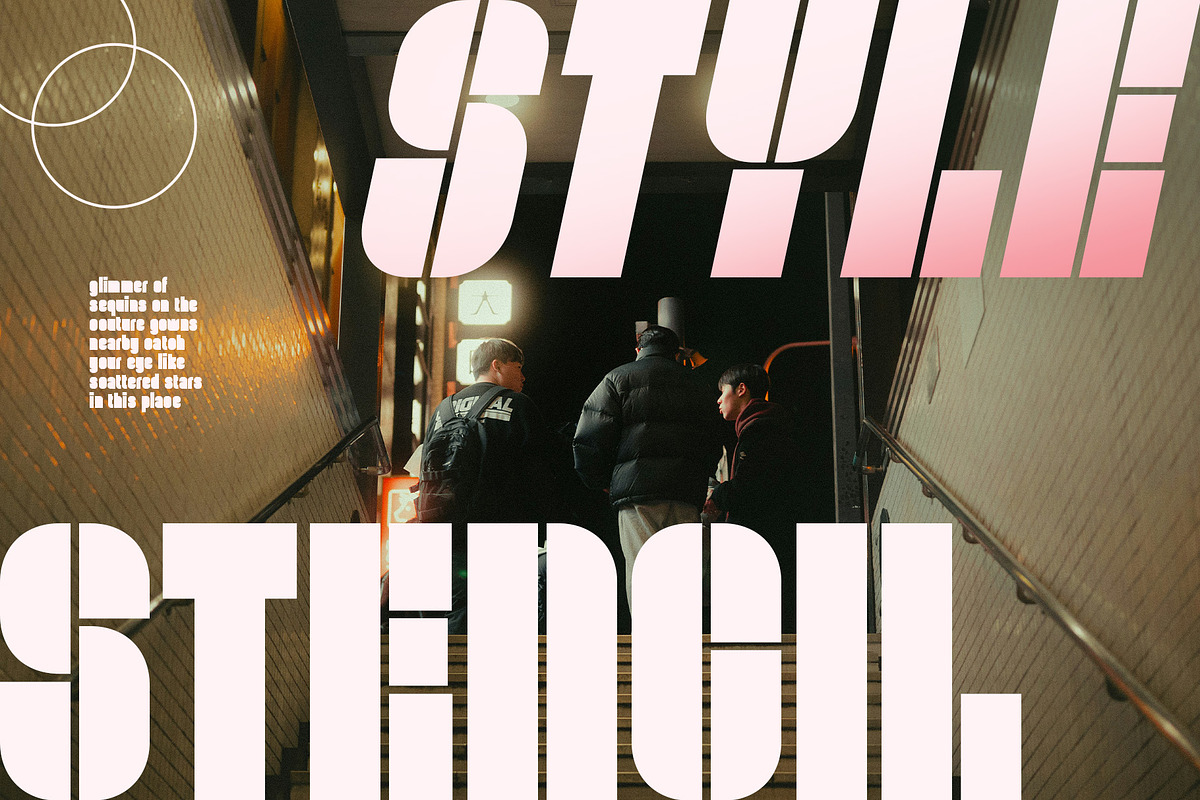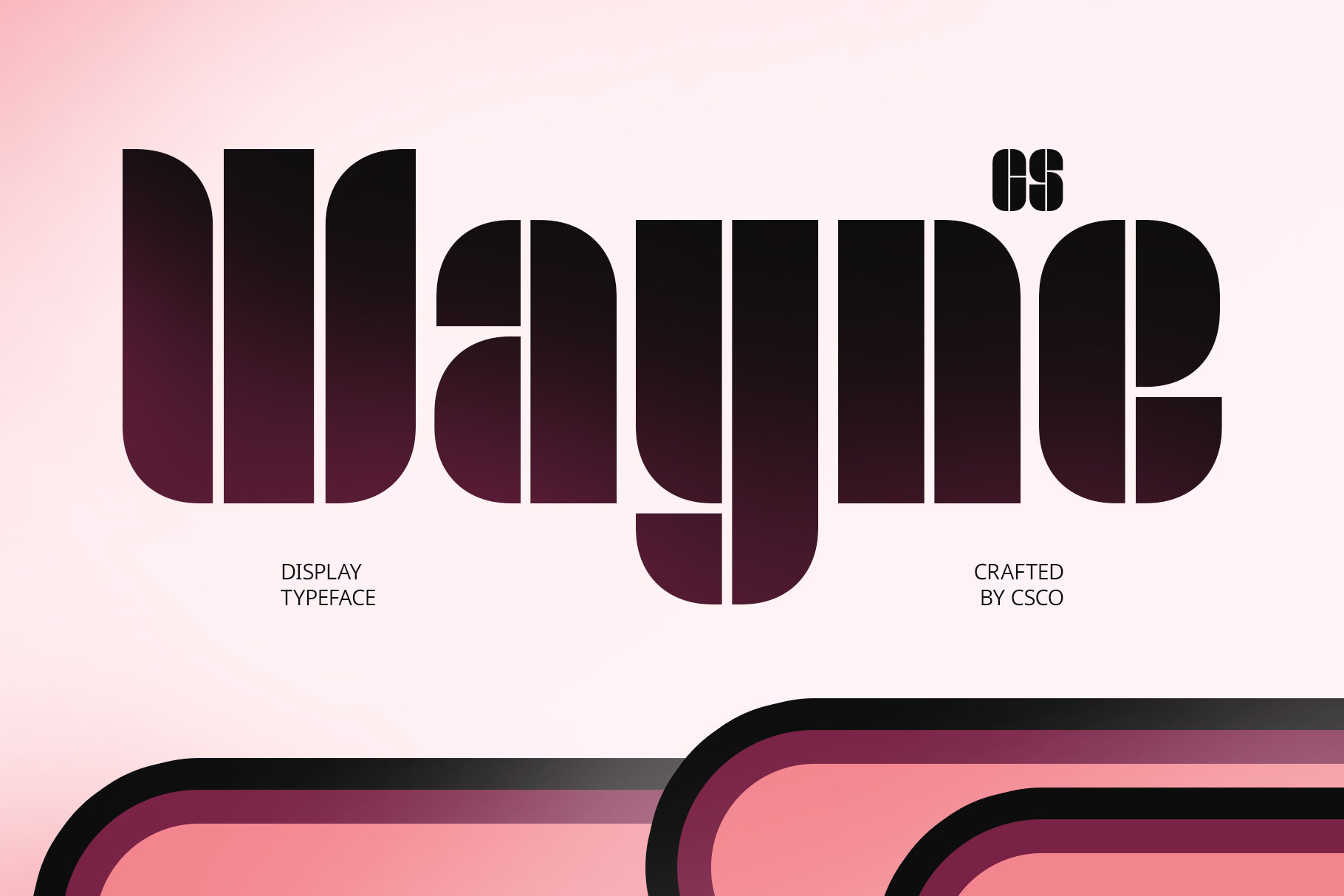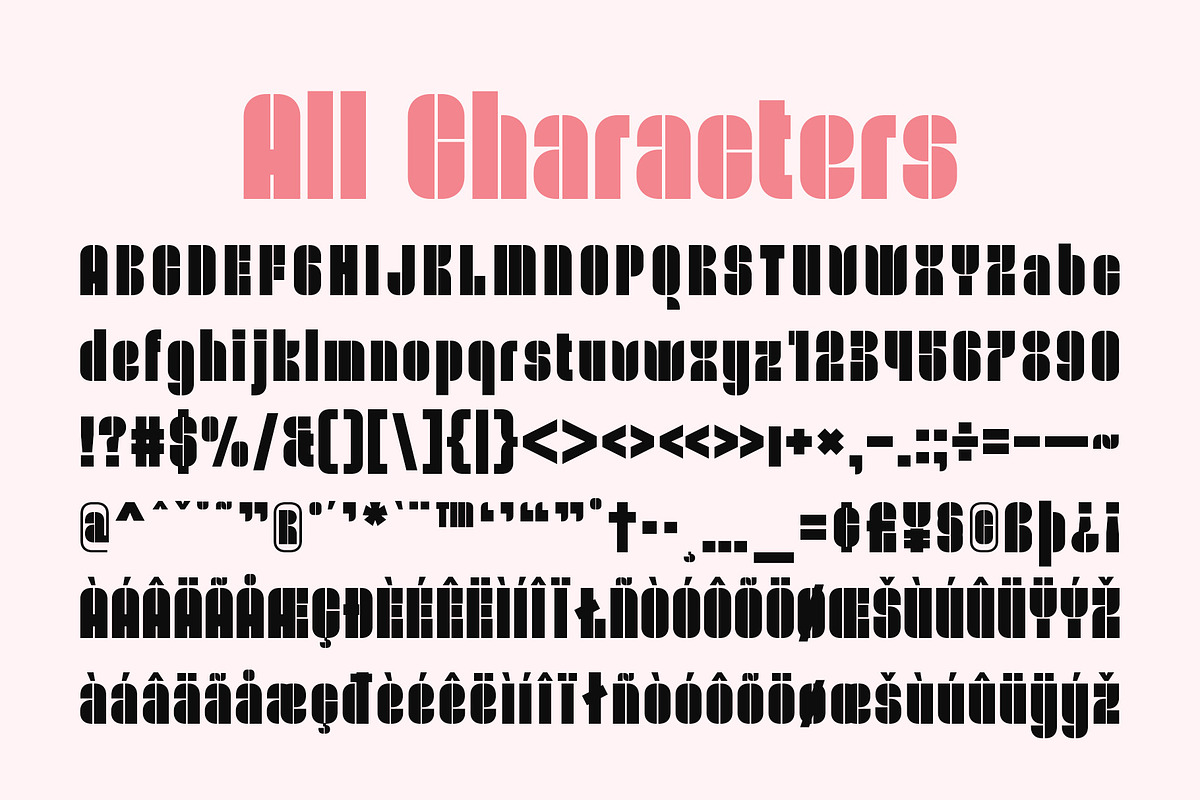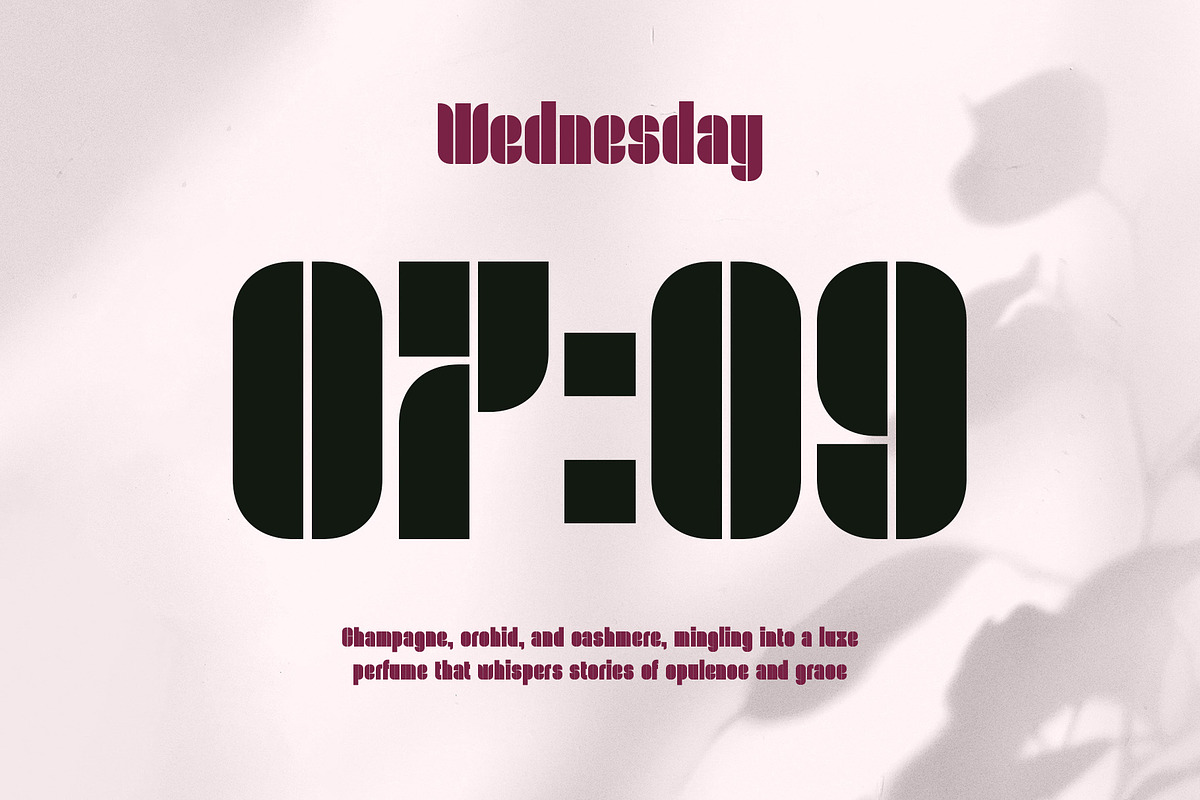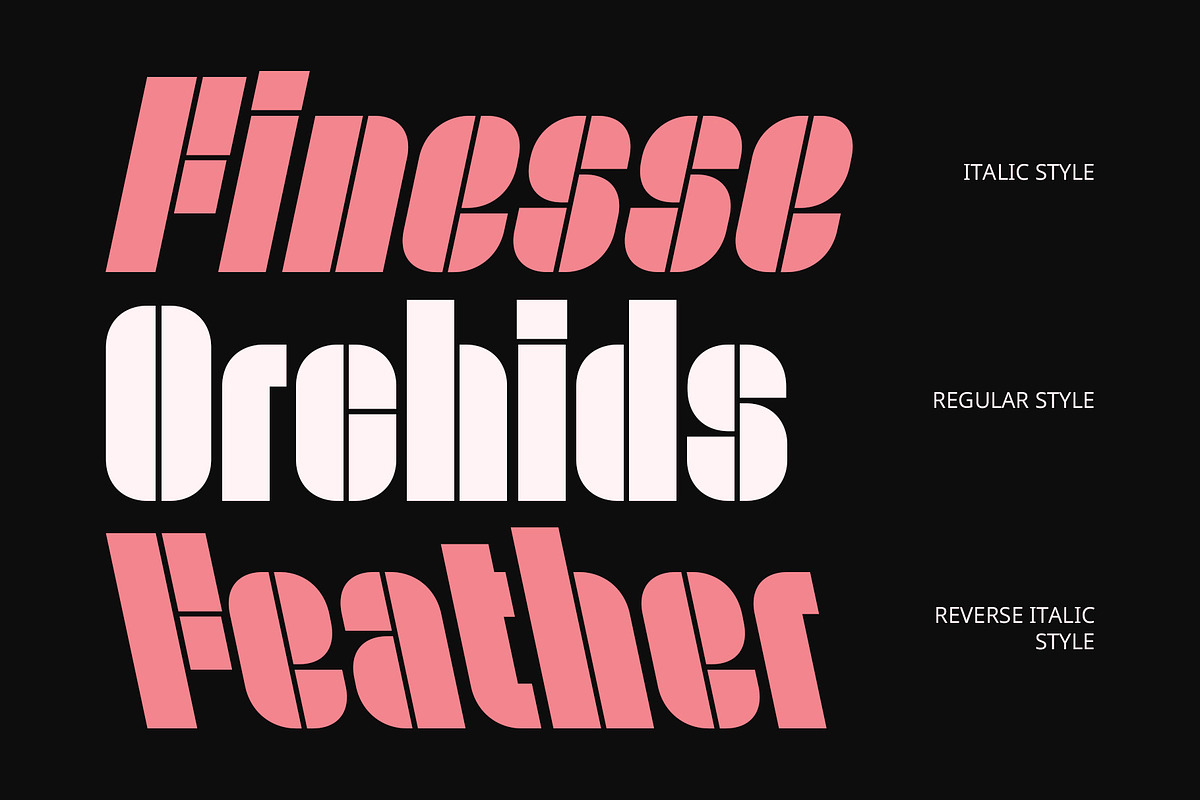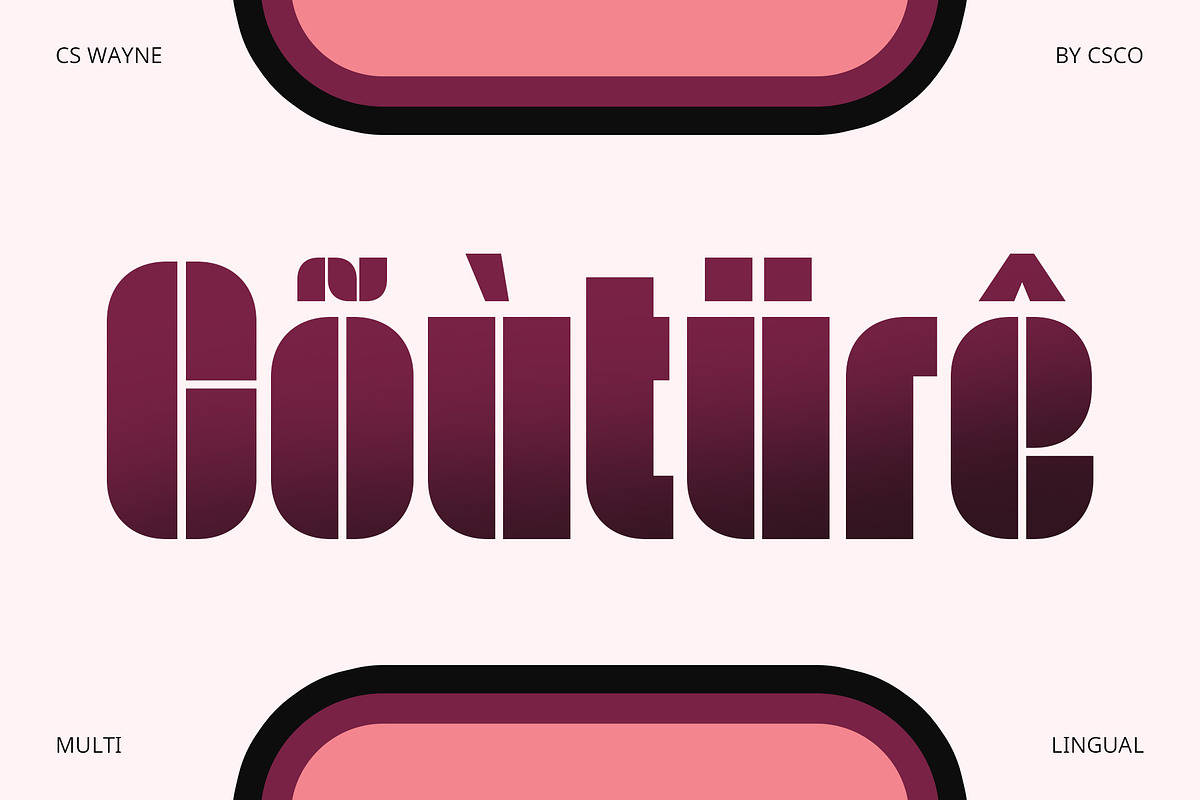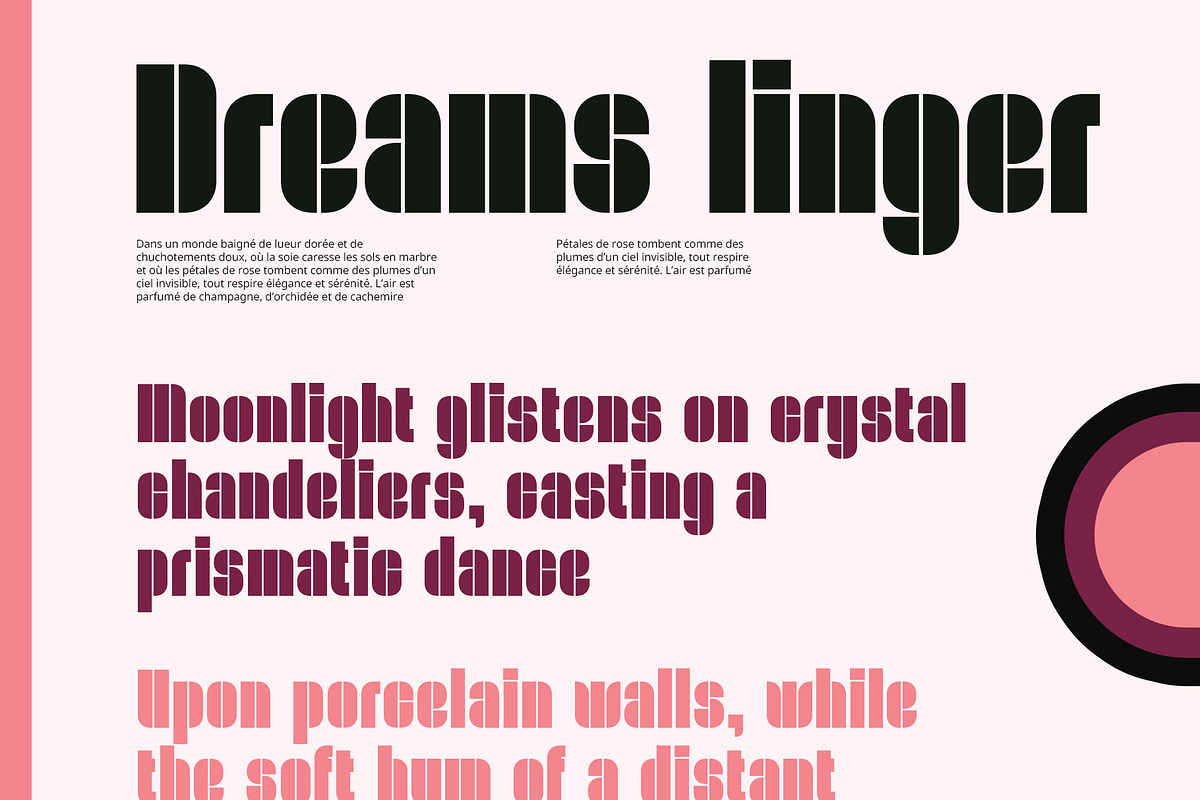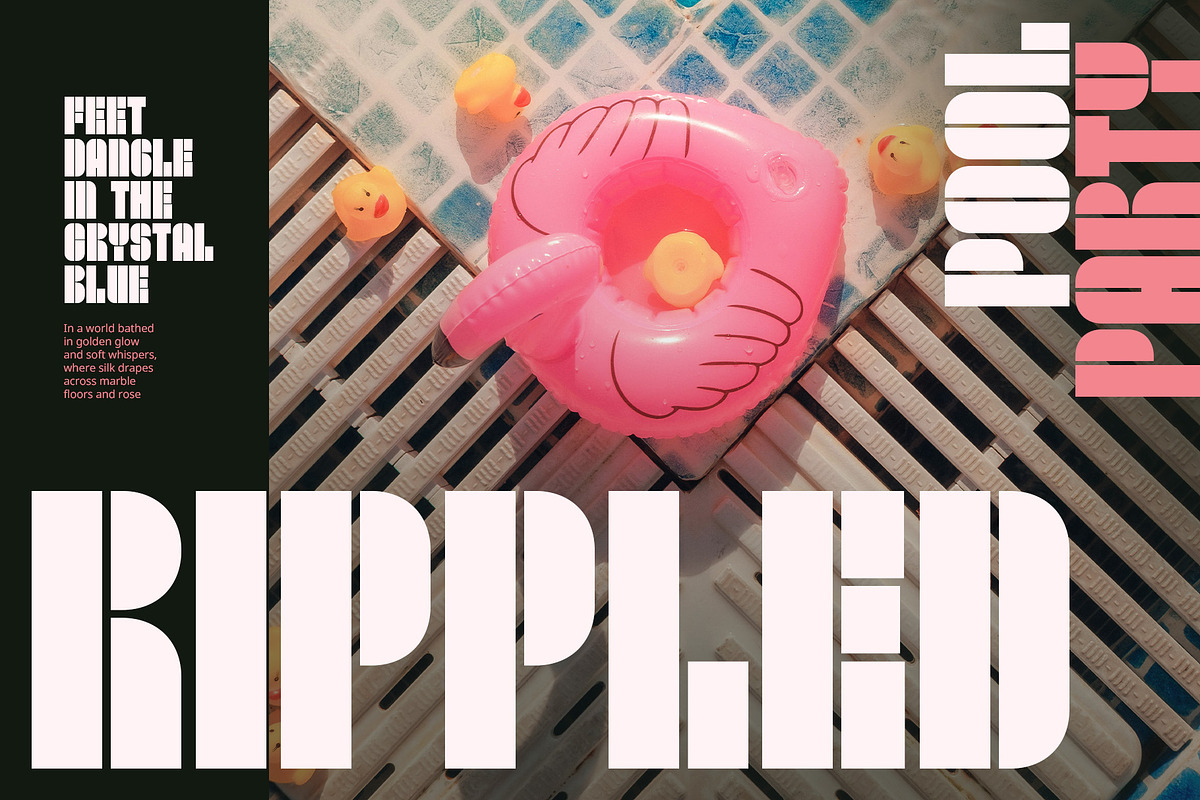
CS Wayne – Stencil Font
CS Wayne – Stencil Font: Industrial Precision with Bold Character
Bold, Clean, and Contemporary Stencil Style CS Wayne Font features a bold and clean modern stencil design, combining structural clarity with contemporary aesthetics. Its segmented letterforms give it a striking and assertive appearance, perfectly suited for bold and expressive visual communication.
Industrial Edge with a Futuristic Feel The precise cuts and deliberate gaps in each character reflect a distinctly industrial influence, while maintaining a refined, futuristic touch. As a display font, this balance of function and style creates a dynamic visual identity that feels both utilitarian and forward-thinking.
Unique and Strong Letterforms Designed for impact, CS Wayne’s letterforms are built to stand out. The interrupted strokes and sharp shapes form a powerful silhouette that commands attention—ideal for titles, logos, and graphics that aim to be both modern and memorable.
Perfect for Bold Branding and Display Design Whether used in branding, poster design, packaging, or visual identity projects, CS Wayne brings a confident and modern voice. Its stencil style adds a layer of distinction that enhances any design with a sense of innovation and purpose.
Versatile for Creative and Urban-Inspired Layouts CS Wayne thrives in designs that seek to convey strength, structure, and style. It’s particularly effective in tech, fashion, architecture, or music branding—anywhere a bold, cutting-edge look is needed to leave a lasting impression.